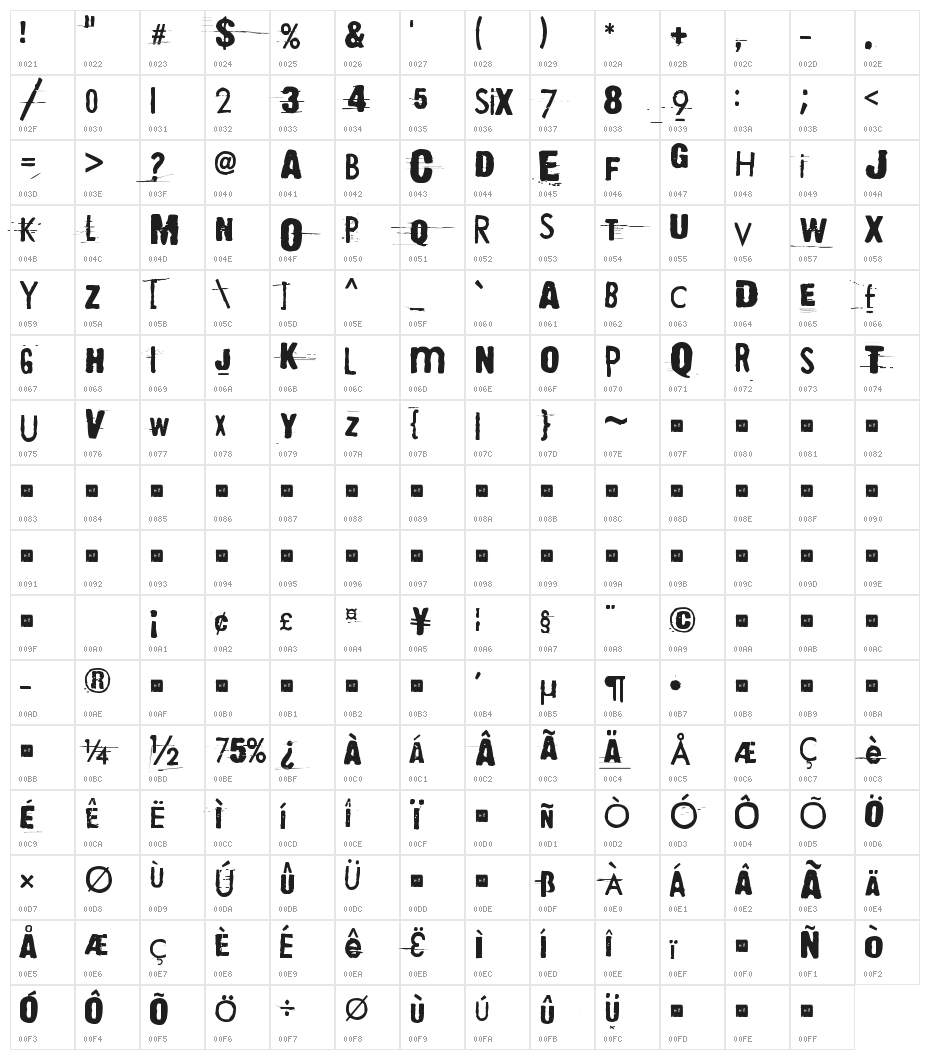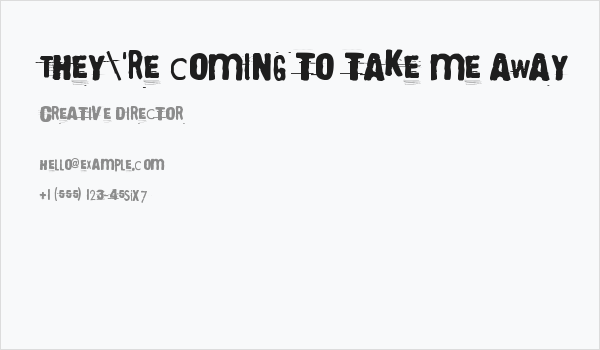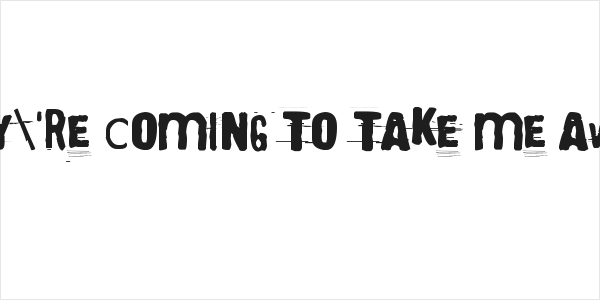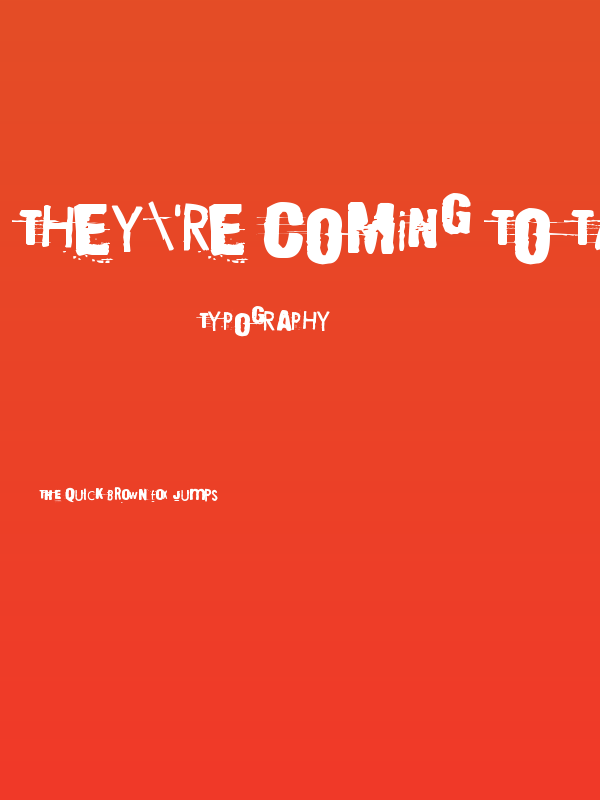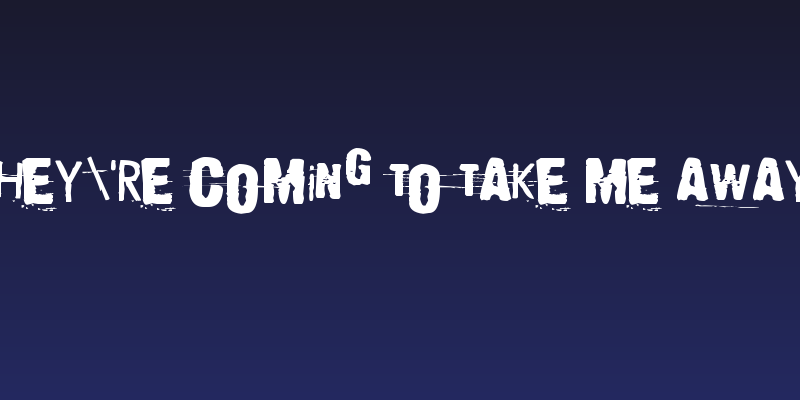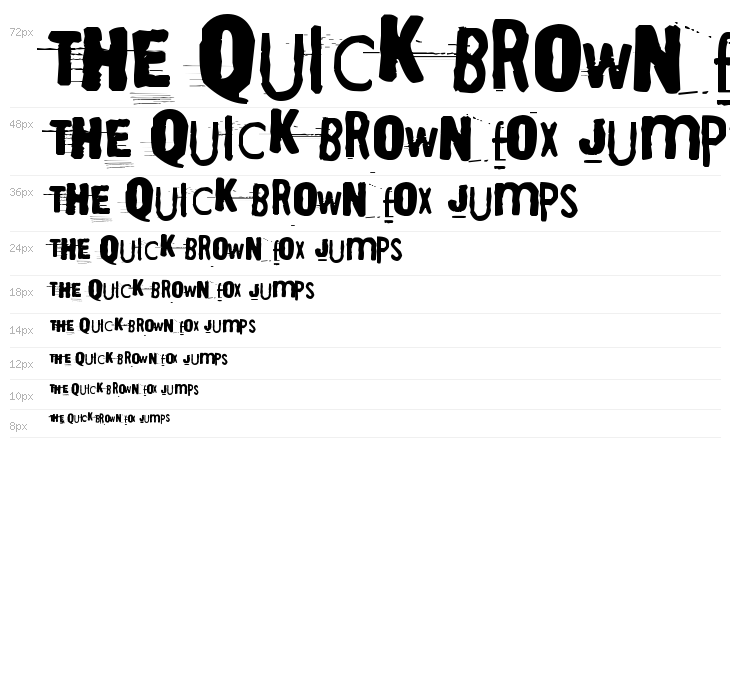
They're coming to take me away Font
They're coming to take me away Description
This font features a distressed and grungy style, characterized by irregular edges and a rough texture that gives it a chaotic and edgy appearance. The uppercase and lowercase letters are bold and uneven, with a hand-drawn feel that adds to its unique character. The numbers and special characters maintain this distressed look, making the font suitable for designs that require a raw and rebellious aesthetic. The overall appearance is bold and impactful, with a sense of movement and energy conveyed through its uneven strokes and varying thickness.
| Overall Style | Grunge, Edgy, Distressed |
| Use Case | Headlines, Posters, Artistic Designs |
| Proposed Projects | Ideal for music album covers, edgy posters, rebellious branding, and creative artwork. |